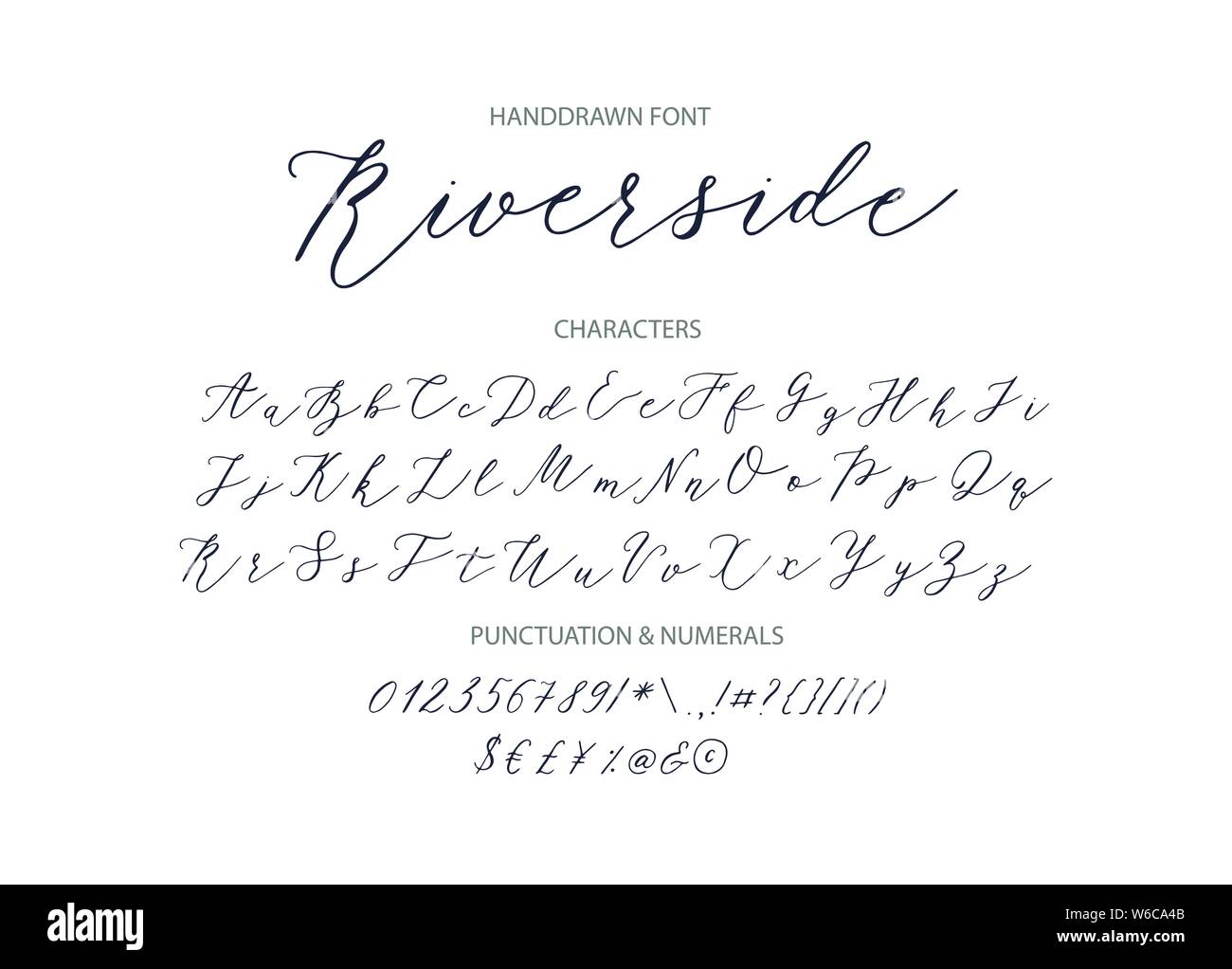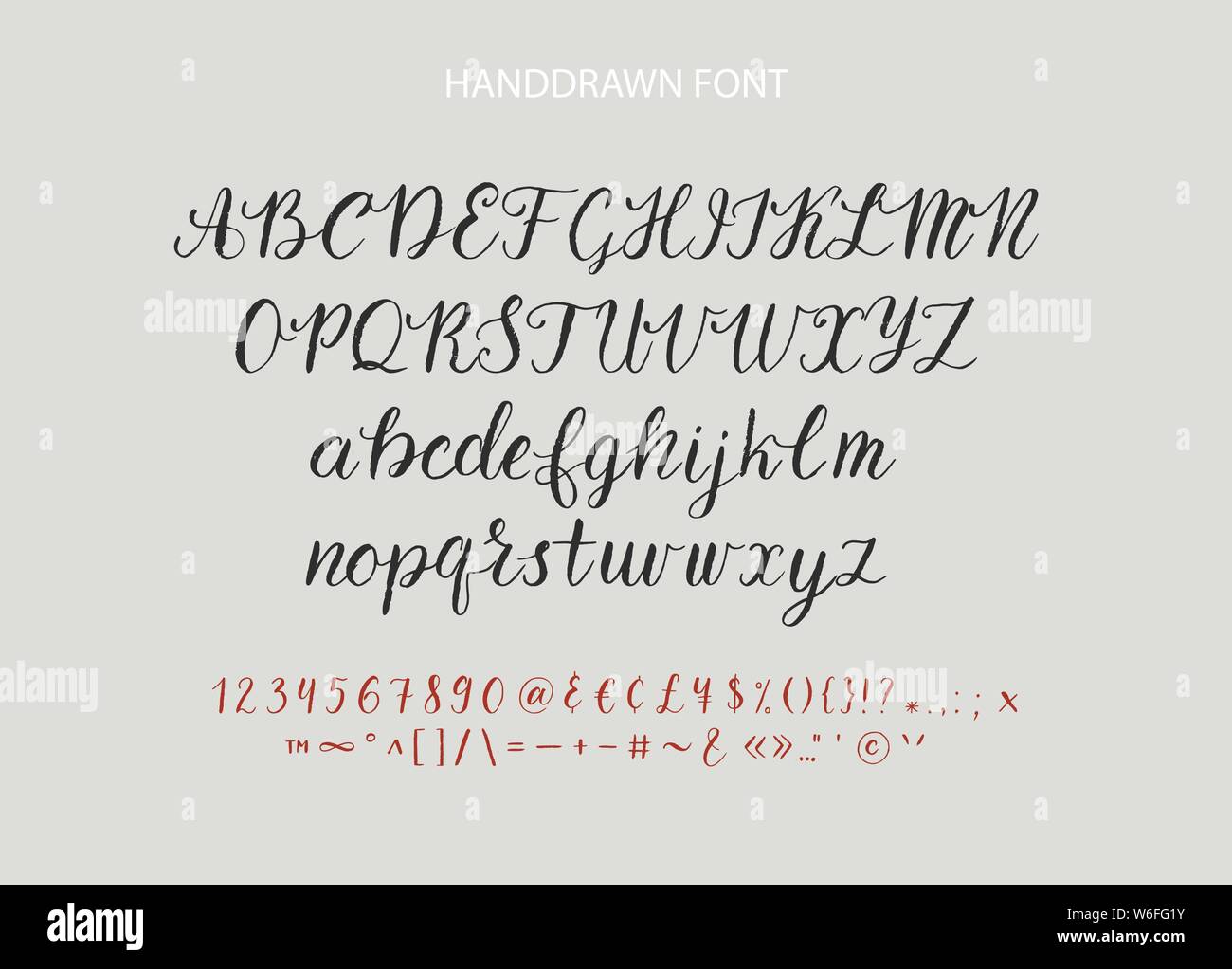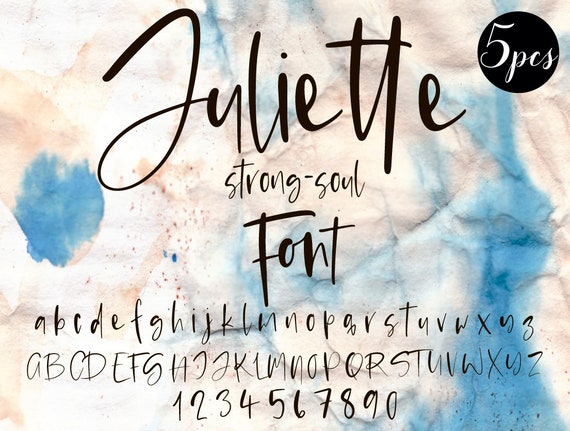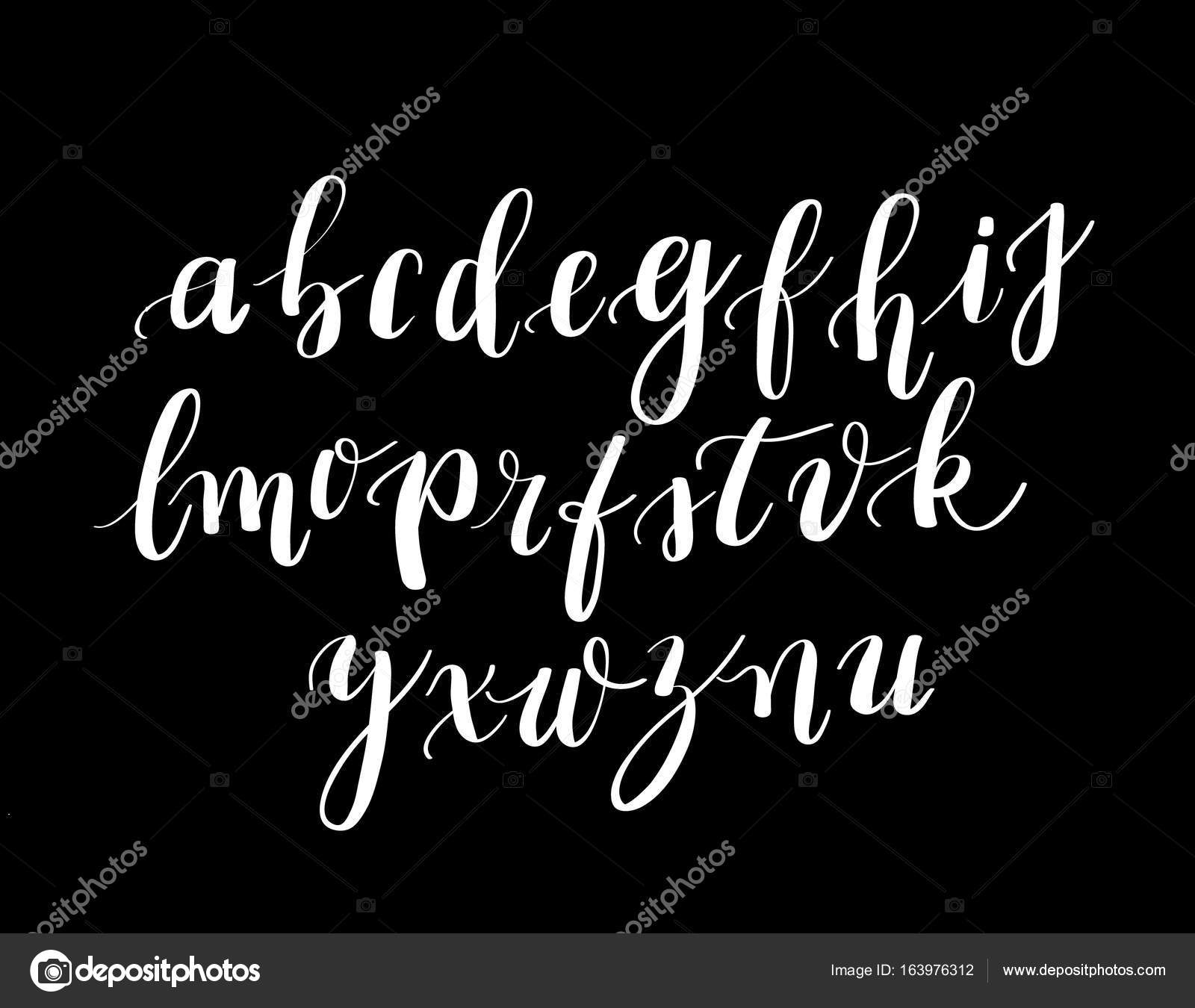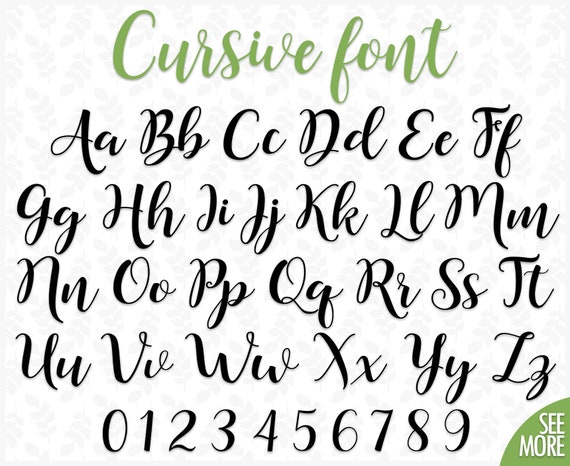
In the Arabic Latin and Cyrillic alphabets many or all letters in a word are connected sometimes making a word one single complex stroke. The current Windows 10 Script typefaces include Brush Script MT Edwardian Script ITC Freestyle Script French Script MT Gigi Harlow Solid Italic Kunstler Script Lucida Calligraphy.
Cursive also known as joint writing or running writing or handwriting is any style of penmanship in which the symbols of the language are written in a conjoined andor flowing manner generally for the purpose of making writing faster. Every font is free to download. Lucida Handwriting Lettering Fonts Handwriting Lettering.
See more ideas about calligraphy handwriting cursive lettering. Cursive fonts mimic the style of human penmanship where the letters flow together. Free Chancery Cursive Font Download Cursive Fonts Calligraphy Fonts Alphabet Cursive Calligraphy.
Cursive fonts simply emulate cursive handwriting in which letters are usually connected in a slanted and flowing manner. The cursive handwriting style is functional and intended to be used for everyday writing. How To Choose The Right Font Comic Sans Brush Script Lucida Calligraphy.